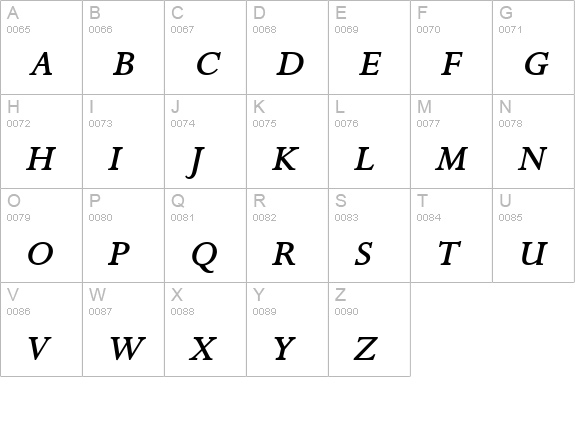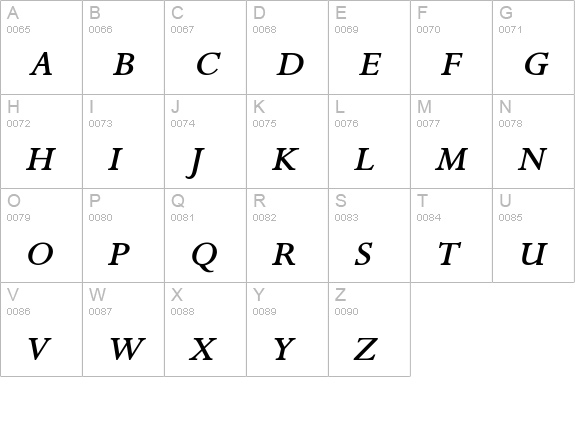
Introducing Rapid BoldItalic font, the epitome of style and sophistication. This unique font combines the boldness of a strong typographic statement with the elegance of italicized letterforms. The result is a visually striking typeface that demands attention and exudes confidence. Rapid BoldItalic font is perfect for those seeking to make a bold statement with their design projects. Whether you're working on a logo, branding materials, or advertising campaigns, this font will effortlessly captivate your audience and leave a lasting impression. What sets Rapid BoldItalic font apart is not only its stunning design but also its versatility. It seamlessly adapts to various design contexts, from sleek and modern to classic and timeless. With its exquisite curves and impeccable letter spacing, this font brings a touch of sophistication to any project. And the best part? Rapid BoldItalic font is free! That's right, you can download this incredible font at FontsMarket.com without spending a dime. It's never been easier to elevate your designs without breaking the bank. With Rapid BoldItalic font, you have the freedom to create stunning visuals without any limitations. So why wait? Enhance your designs today with Rapid BoldItalic font. Download it for free at FontsMarket.com and unlock a world of possibilities. Whether you're a professional designer or a creative enthusiast, this font is sure to become your go-to choice for adding that extra touch of elegance and flair. Don't miss out on this incredible opportunity to elevate your designs and make a lasting impression. Get Rapid BoldItalic font now!